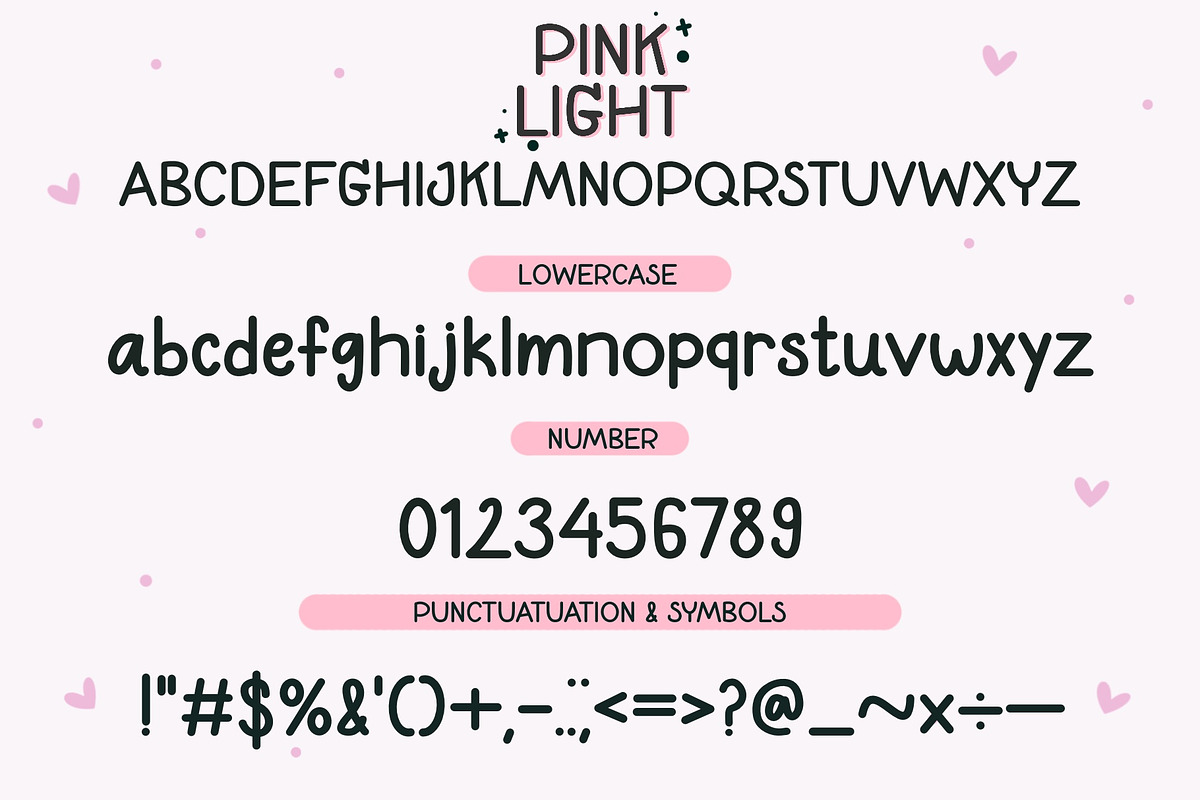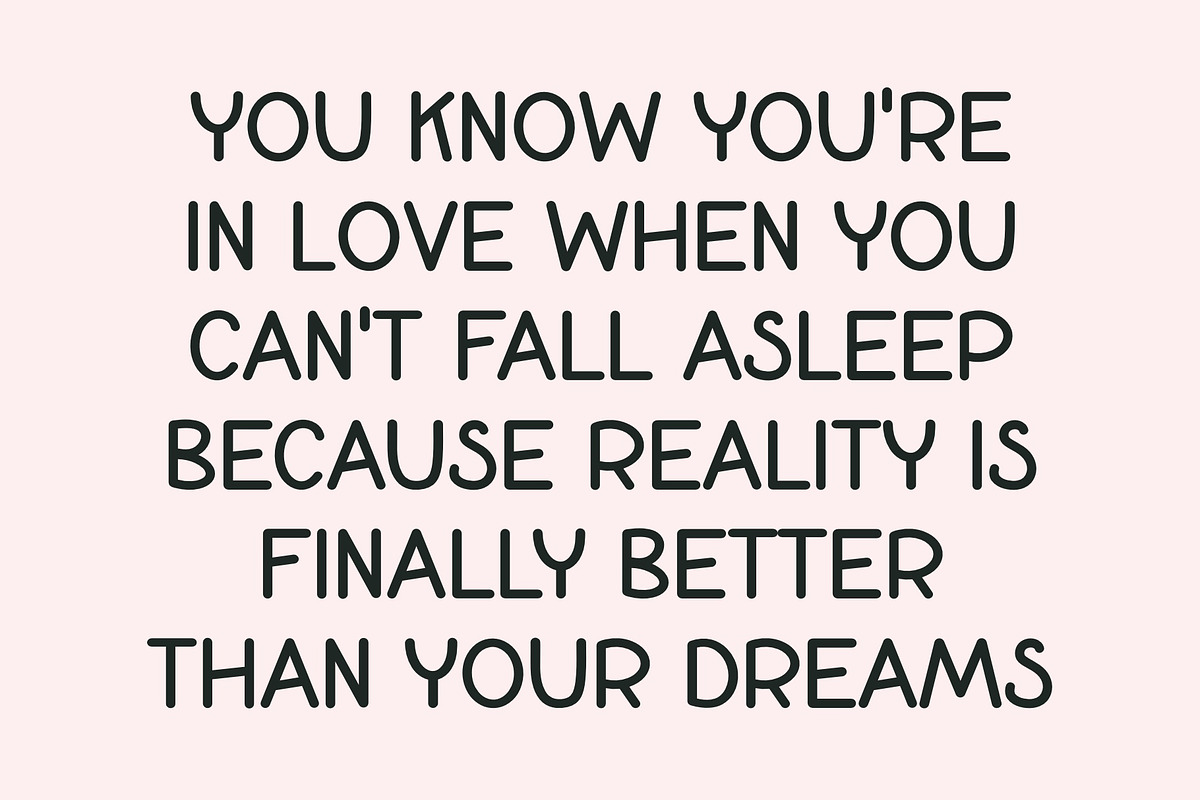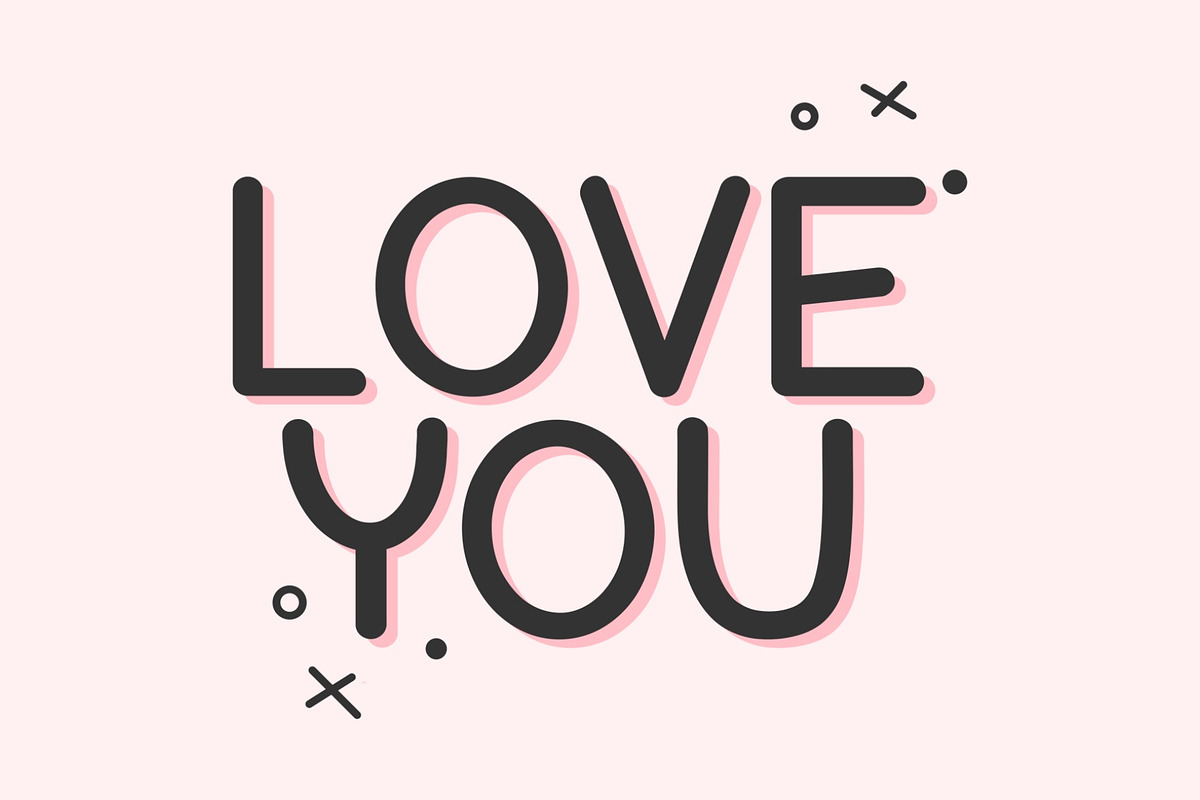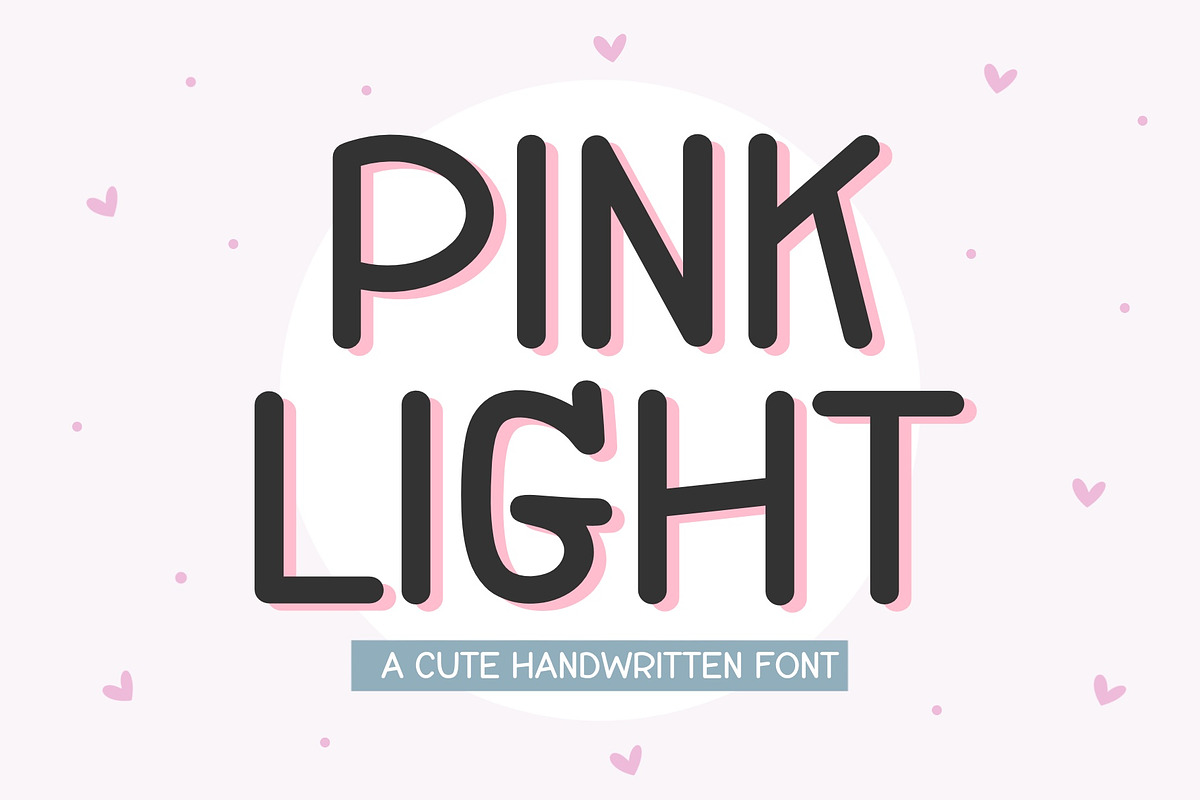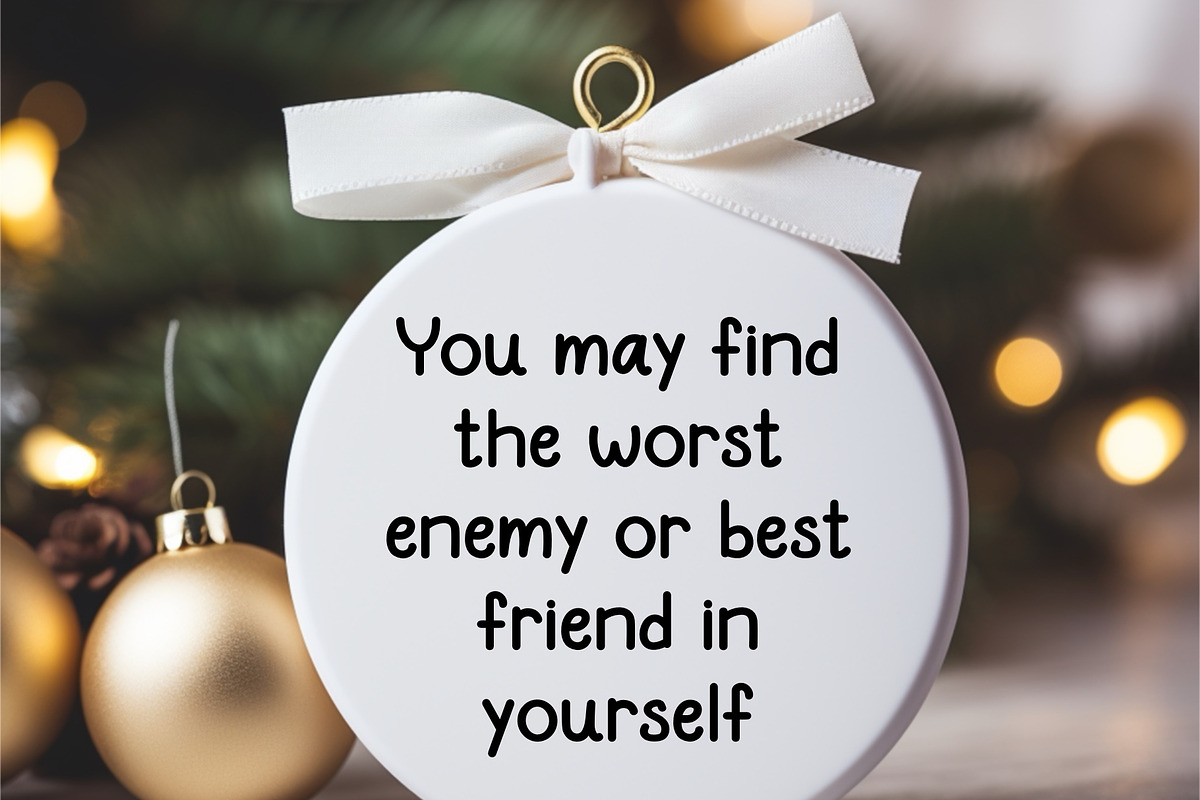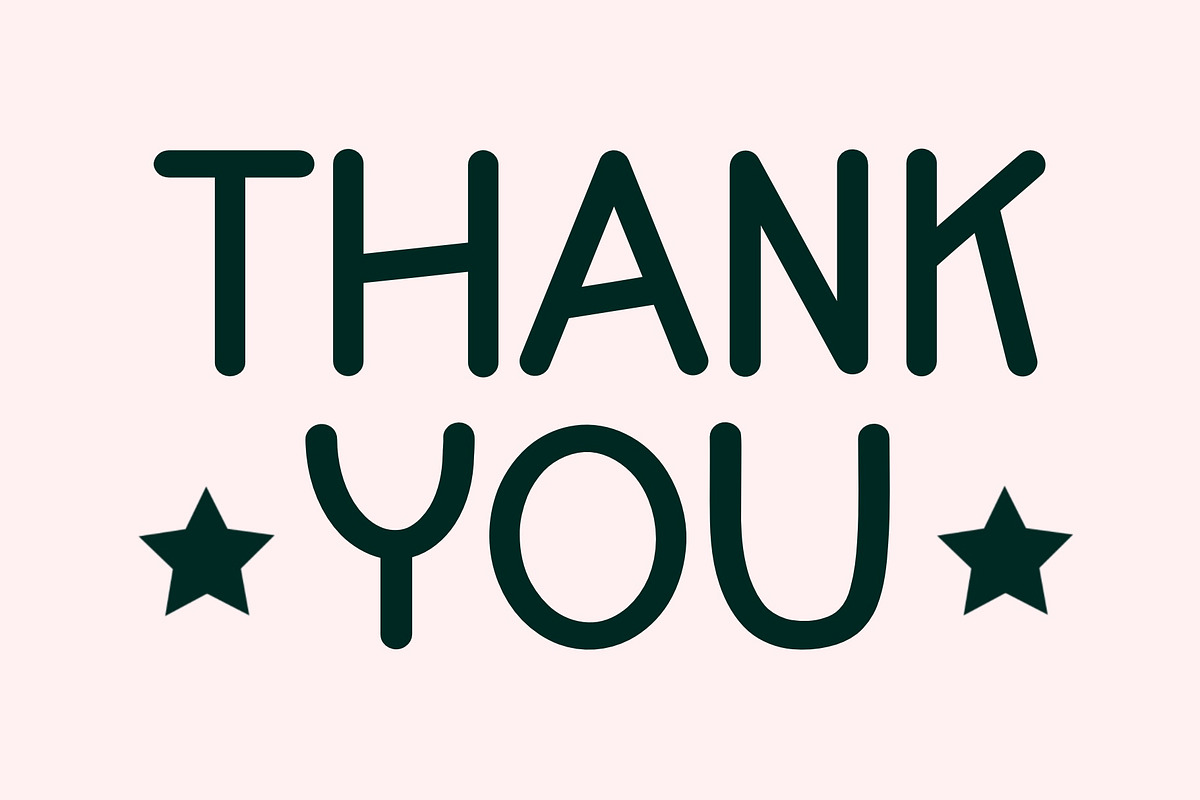
Pink Light Font
Discover our collection of bestselling handwritten fonts, meticulously crafted to bring a personal and artistic touch to your creative projects. Whether you’re a designer, crafter, or DIY enthusiast, these fonts will elevate your work and make it truly unique.
Unparalleled Authenticity: Each font in our bestselling collection is handcrafted with precision to capture the authentic beauty of handwritten script. They exude personality, warmth, and a genuine human touch that sets your creations apart.
Versatile Usage: These fonts are incredibly versatile and suitable for a wide range of applications. Use them for invitations, greeting cards, branding, logos, posters, social media graphics, and so much more. Your imagination is the limit.
Endless Creativity: With our handwritten fonts, you have the power to infuse your projects with creativity. Whether you want a whimsical, elegant, or playful vibe, you’ll find the perfect font to match your vision.
Professional Quality: Even though these fonts have a handmade feel, they are professionally designed to ensure clarity and readability. Your audience will appreciate the attention to detail.